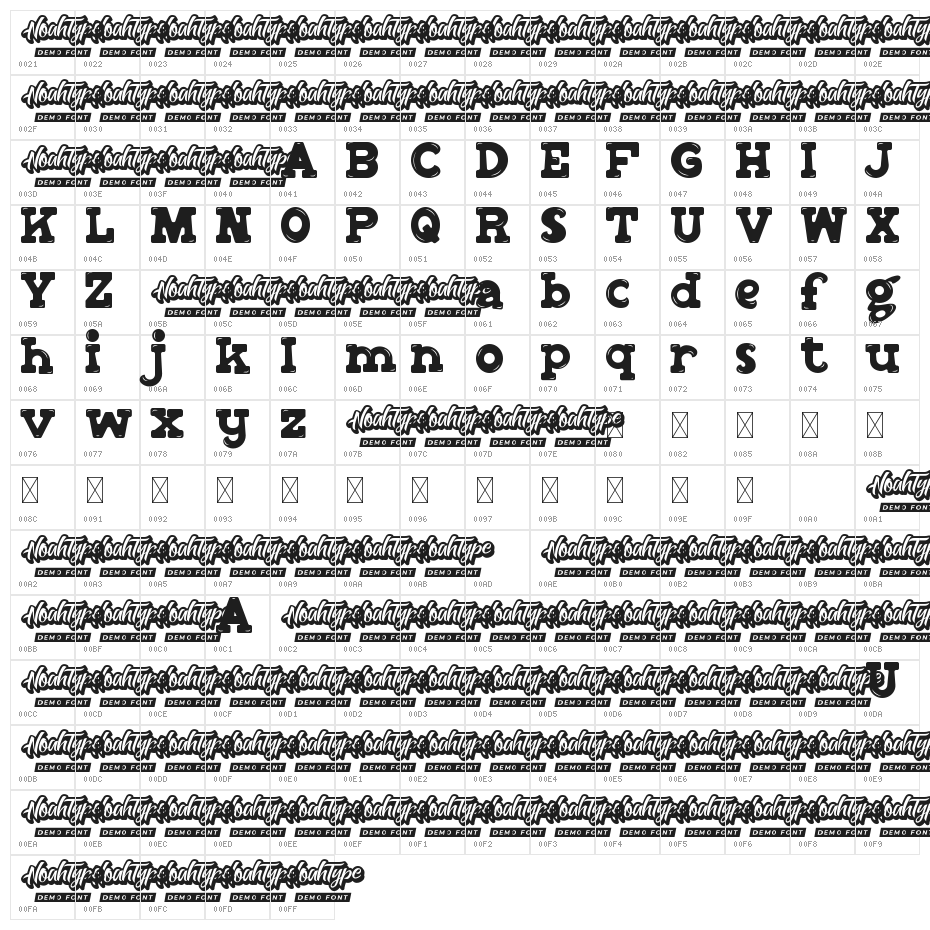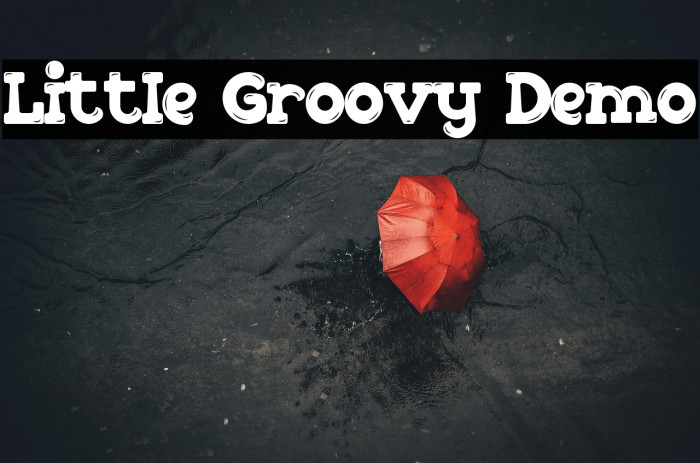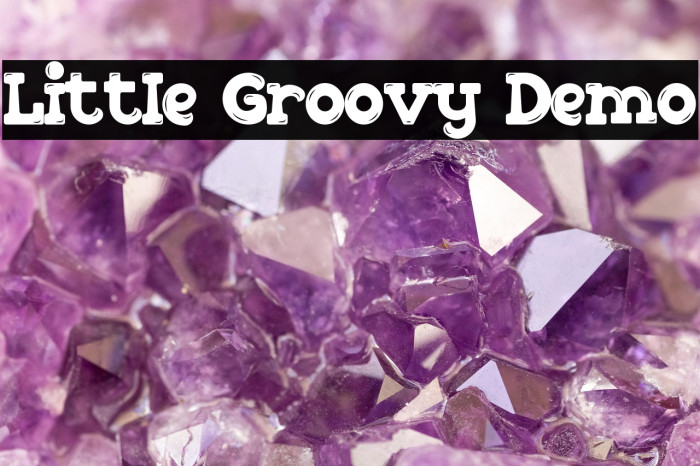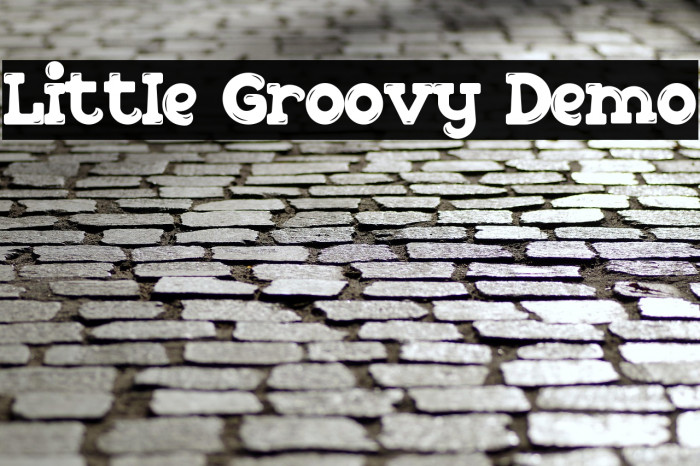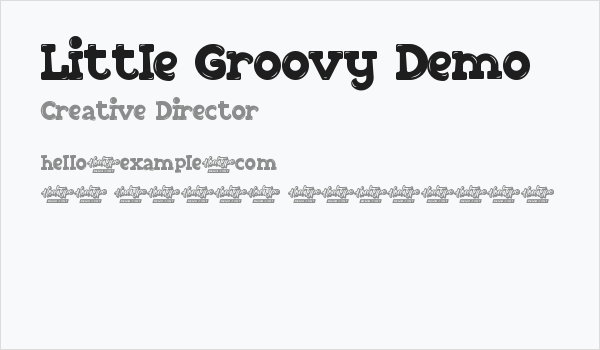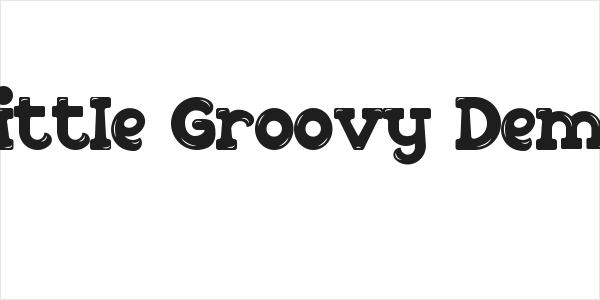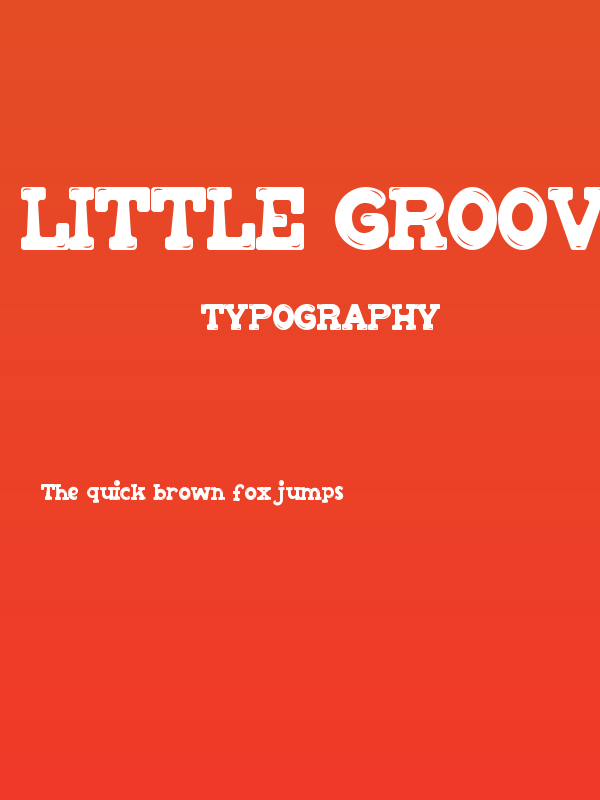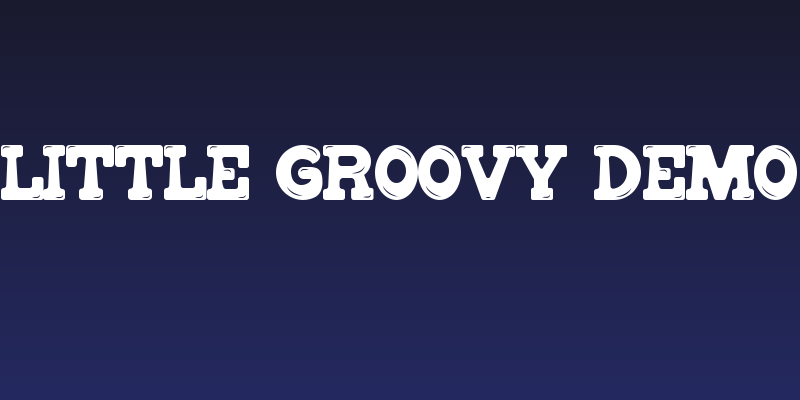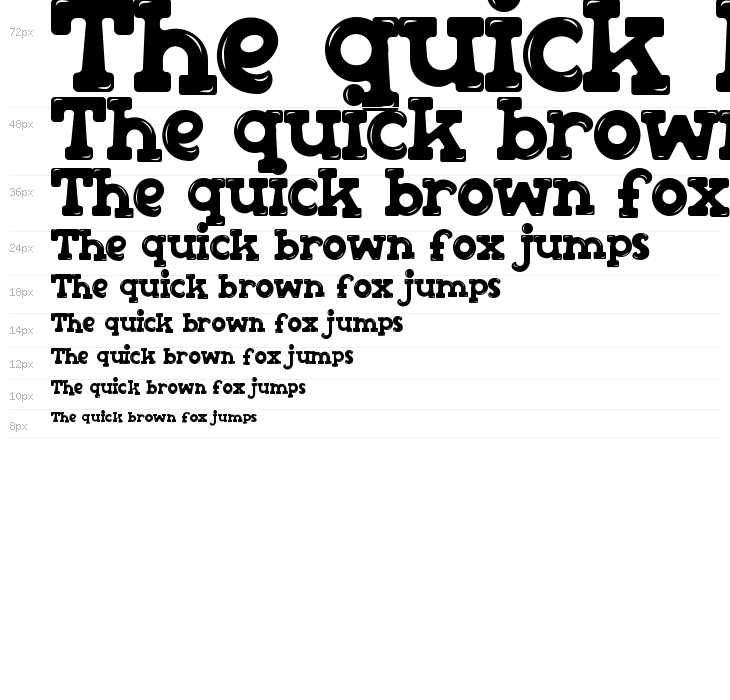
Little Groovy Demo Font
Little Groovy Demo Description
This font features a bold, playful style with thick, rounded strokes and a retro vibe. The characters are designed with a unique flair, incorporating subtle curves and playful elements that give it a groovy, vintage feel. The uppercase and lowercase letters maintain a consistent weight, creating a harmonious look. The numbers and special characters are equally bold, ensuring readability and style. This font is perfect for projects that require a touch of nostalgia and fun.
Overall StyleVintage
Proposed ProjectsIdeal for retro-themed posters, music album covers, playful branding, and creative social media graphics.